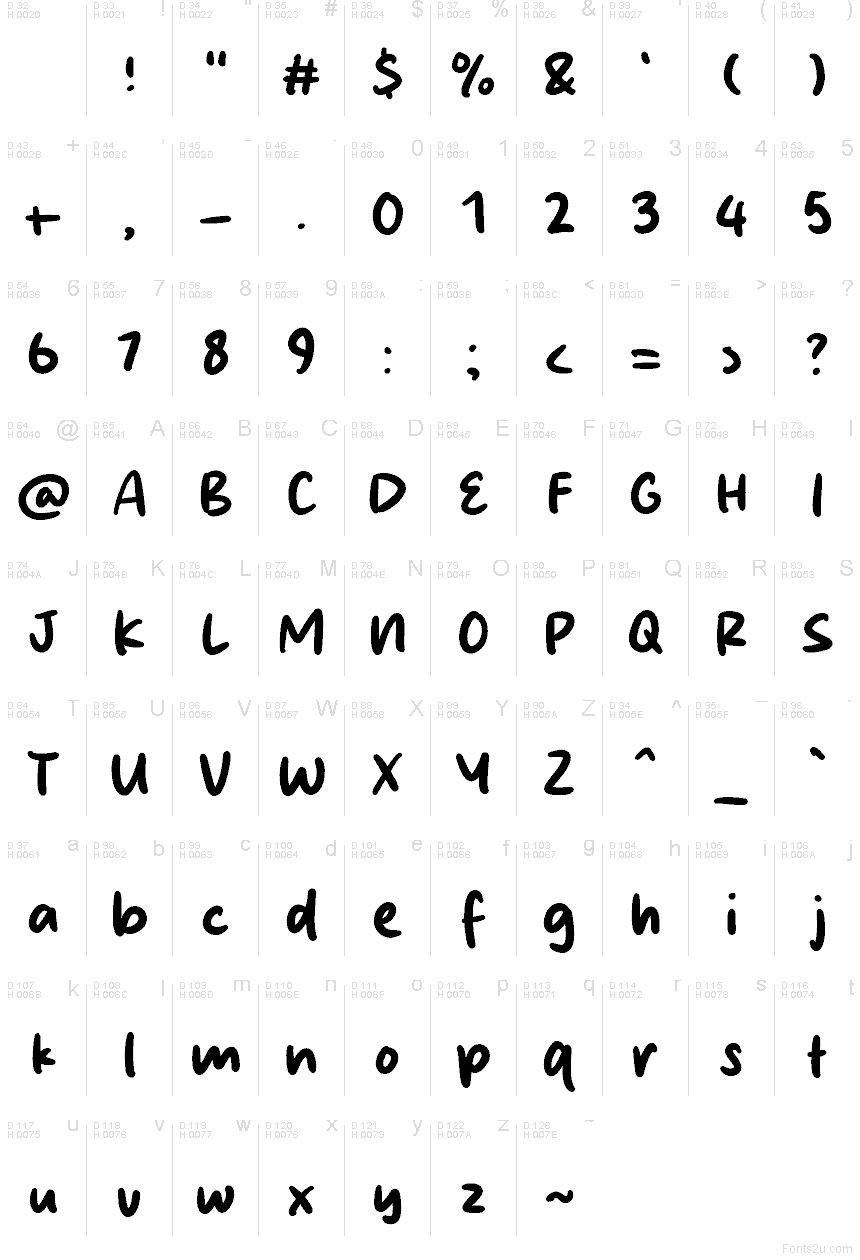
Garden Story
Garden Story font by Origin Type is a free handwritten typeface that bridges the gap between cute and clean. Its rounded strokes feel like thick marker lines on smooth paper—casual and friendly, but still steady and easy to read. The letters tilt and bounce just enough to feel human, giving headlines and short phrases a warm, welcoming voice without slipping into messy doodle territory.
Using Garden Story, you can bring this soft, playful energy to kids’ books, party invites, product packaging, posters, social media graphics, and branding for cozy, handmade goods. This free font shines at larger sizes where its inky curves can breathe, while simple sans-serif body text makes a great supporting partner underneath.